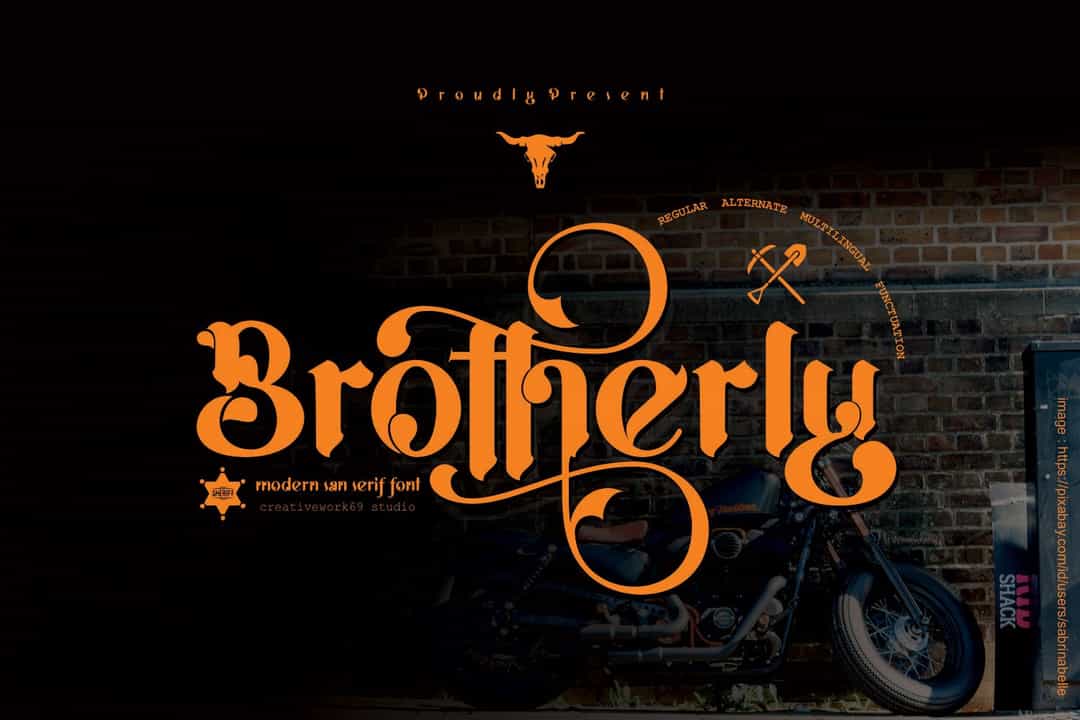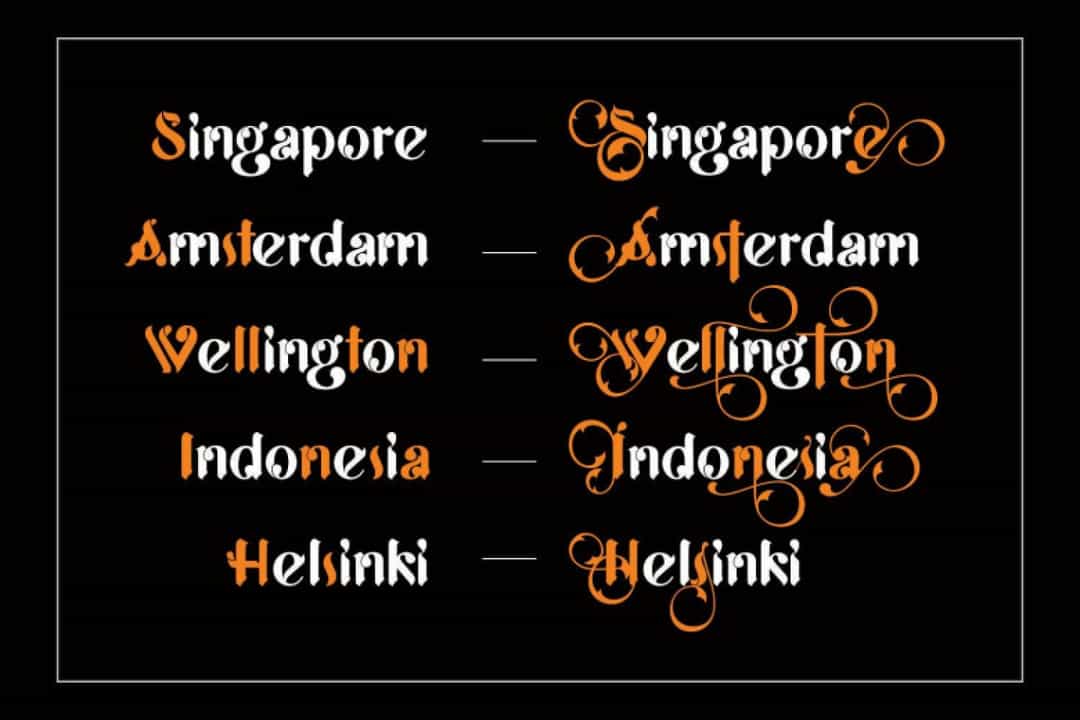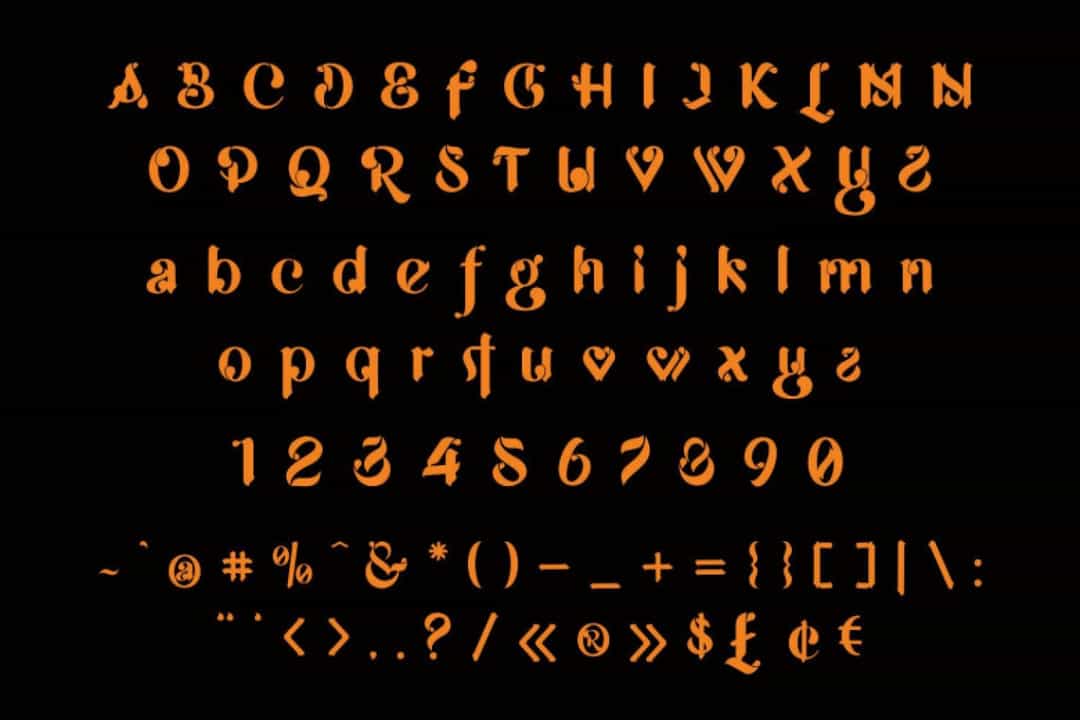
Brotherly is an exquisite serif typeface designed by PUA encoded, giving you access to all Swashes and Glyphs in no time! Add Brotherly to any design you create to see it come to life! Phongphrai by Jipatype offers high-quality serif font for free download for personal use; its free version features all lowercase letters as well as unique characters.